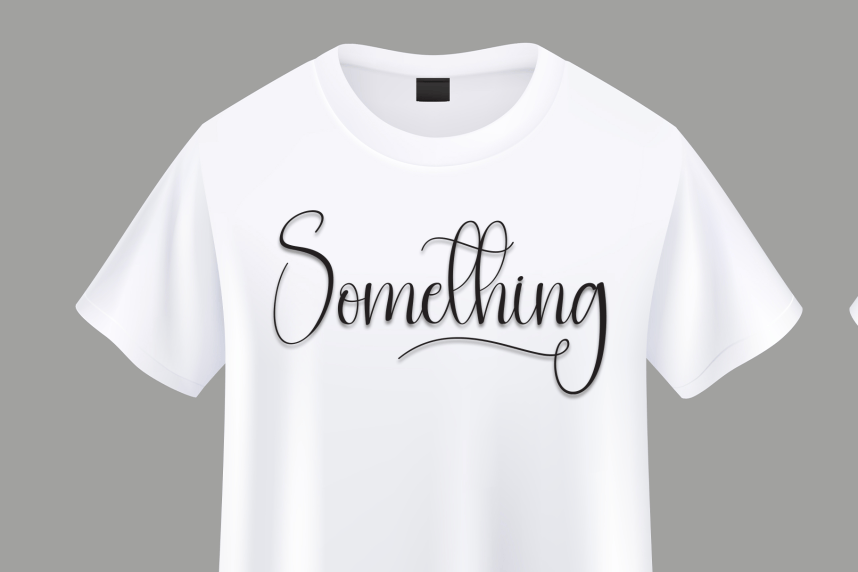
Chubby – Stylish Handwritten Script Font
Chubby – Stylish Handwritten Script Font, special creative products for you, our products will give you an extraordinary experience. the latest style letters are perfect for wall displays, wedding invitations, social media post logos, advertisements, product packaging, product designs, labels, photography, watermarks, invitations, stationery, and any project that requires taste handwriting.